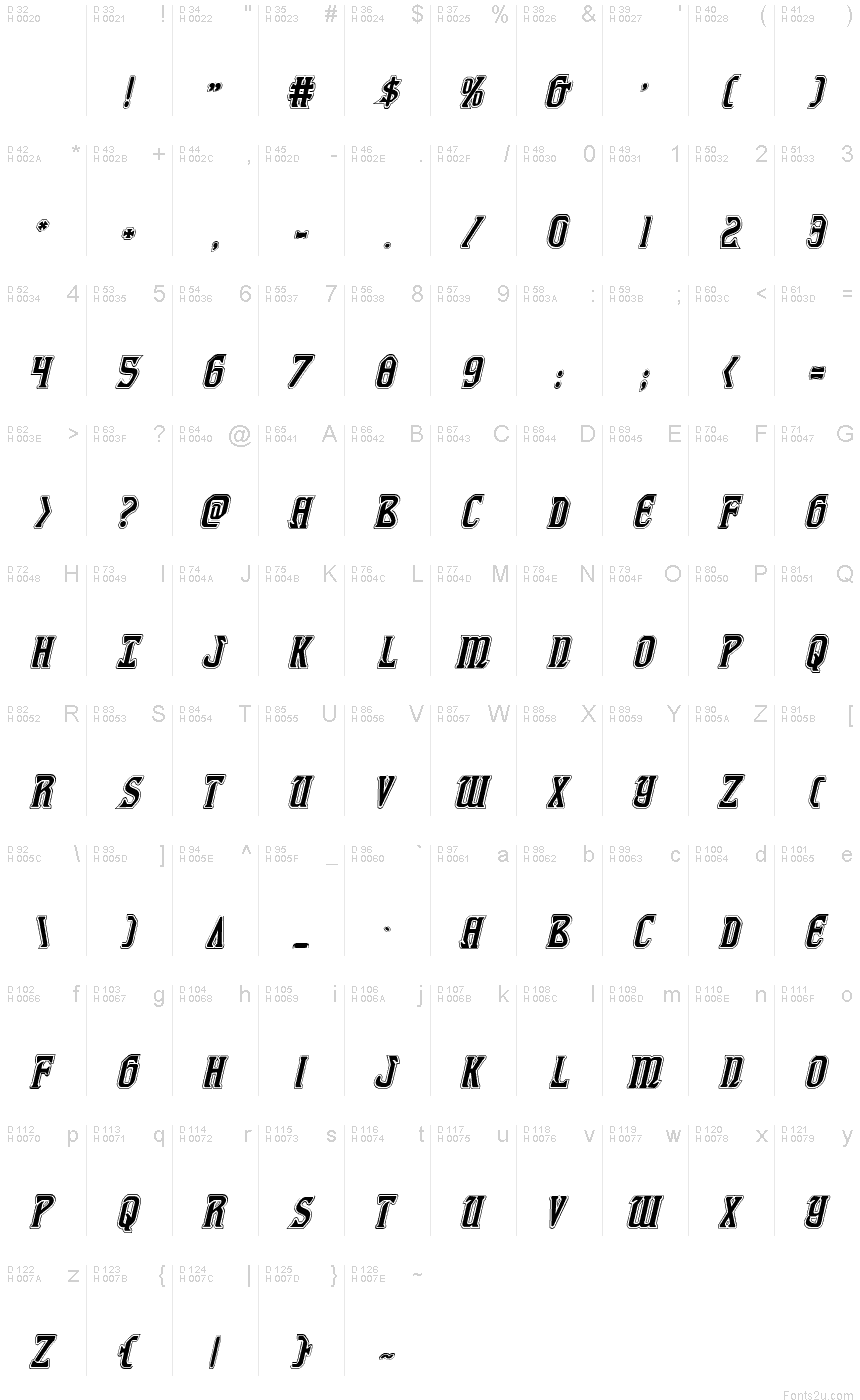
Fiddler's Cove Academy Italic from Iconian Fonts is a free old-school collegiate display font with broad, forward-leaning capitals and sharply cut slab serifs. A slim inset line gives the dark strokes a crisp, engraved edge.
Sports clubs and school organizations can use its assertive varsity style for team branding, event posters, and campus merchandise. The same formal athletic look also suits pub signage and heritage-inspired apparel, where the outlined letters can function like a ready-made badge.
Fiddler's Cove Academy Italic